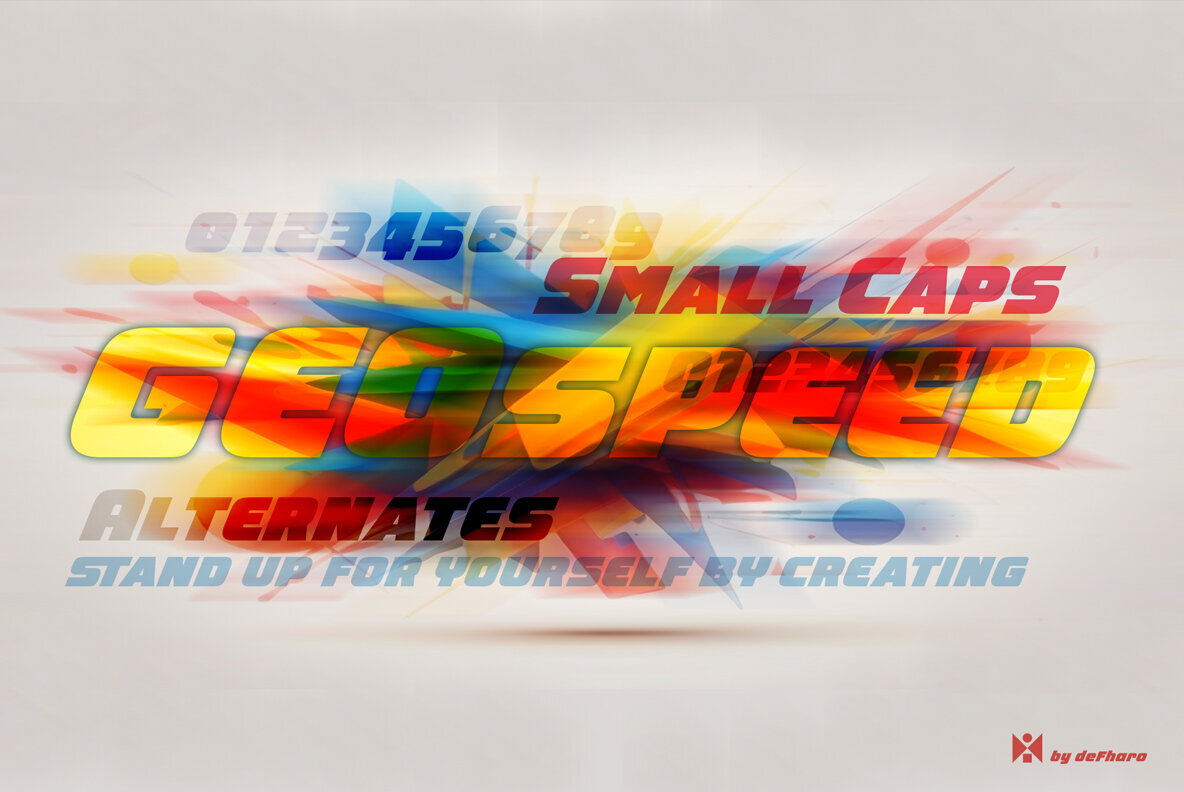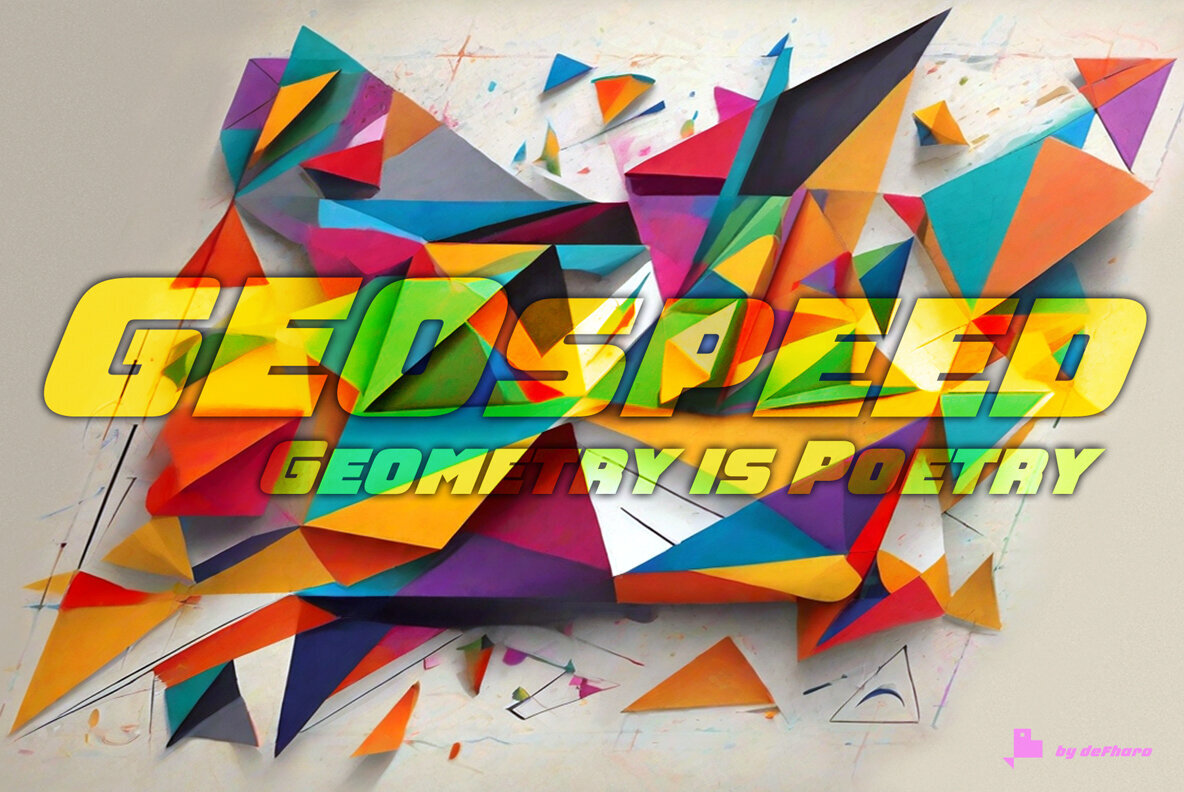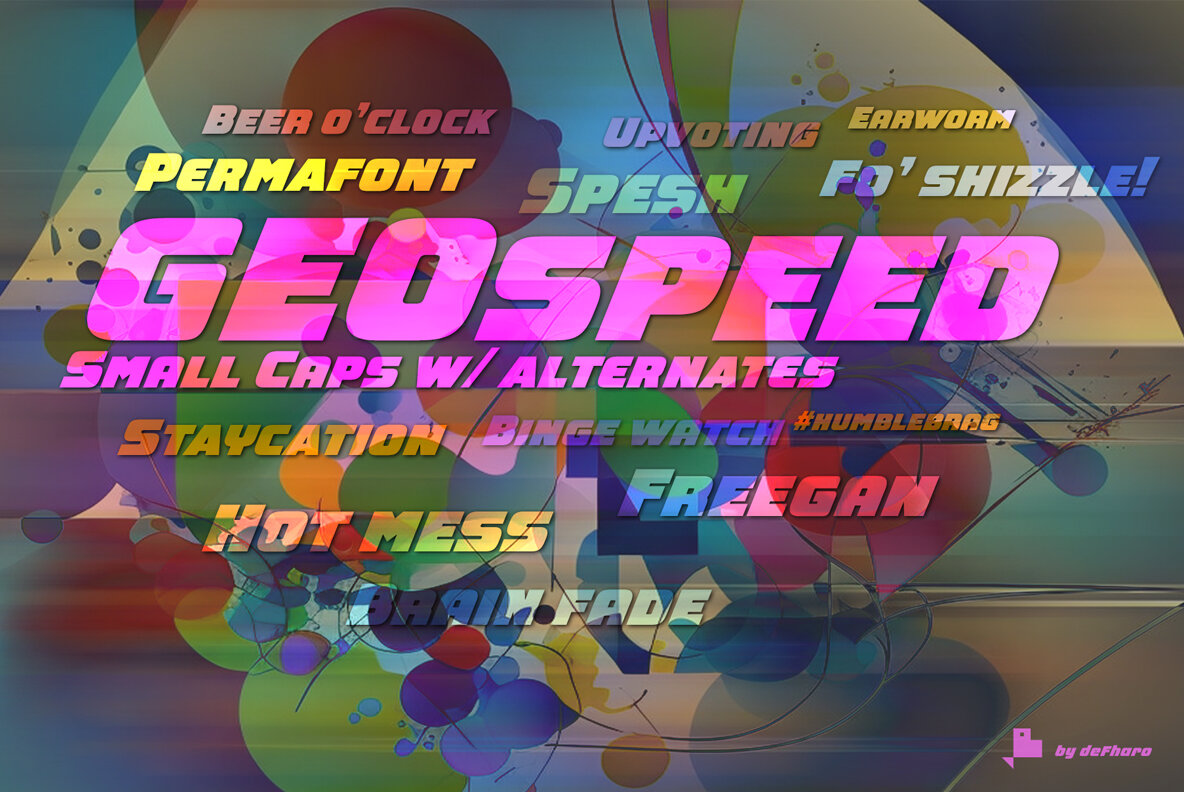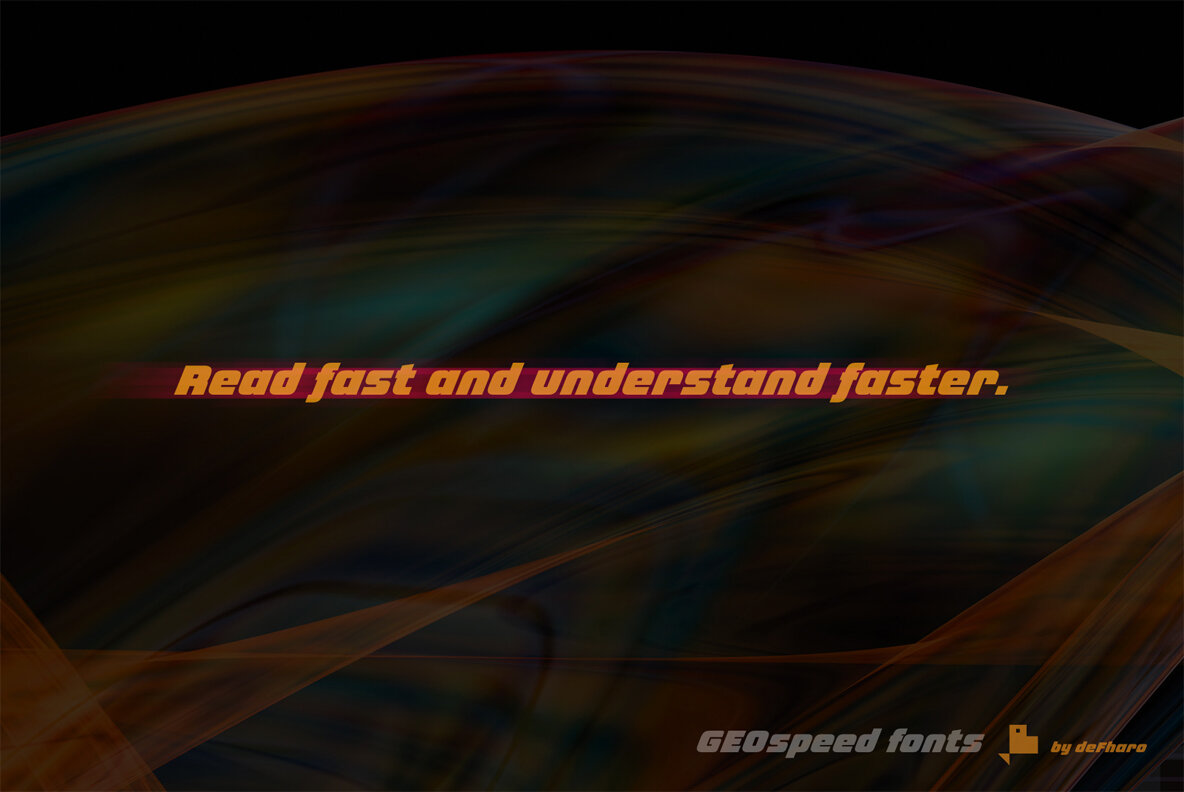
GEOspeed Font
GEOspeed Regular
GEOspeed Small Caps
GEOspeed fuses robustness with elegance, offering a modern solution for advertising, posters, or banners. It embodies the essence of contemporary visual expression. GEOspeed features two unique styles to cater to your creative needs. The Regular version offers solidity and clarity, while Versalite provides a bold and distinctive touch. These styles collectively allow you to explore a broad range of visual expressions. With a 22-degree incline, GEOspeed not only suggests movement but also embodies an avant-garde feel. Each letter expresses dynamism, capturing attention and carrying your message into the future. Each letter is a statement of progression and originality. GEOspeed's sans serif geometry sets a new standard for modern design. Each character is a geometric masterpiece, highlighting strength and elegance while ensuring readability through careful metrics and kerning. GEOspeed's advanced OpenType features offer precise control over text appearance. From sophisticated ligatures to typographic variations, your creativity is unlimited. Explore an infinite range of possibilities with GEOspeed's numbers and letters set, including dynamic fractions that maintain readability without sacrificing style. Every detail is perfected to deliver a flawless typographic experience.GEOspeed: Typeface Redefining Design Standards
Regular and Versalite: Versatile Styles for Creative Expression
22-Degree Inclination: Dynamic and Modern Typography
Sans Serif Geometry: Modernity and Readability
Advanced OpenType Features